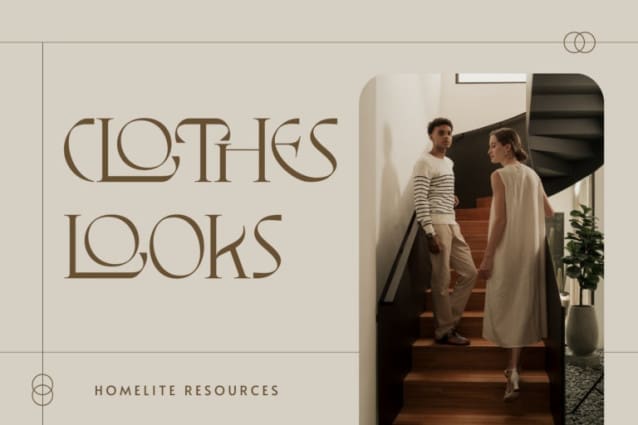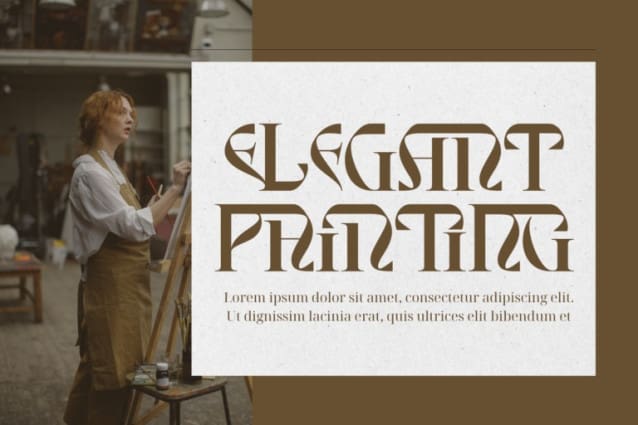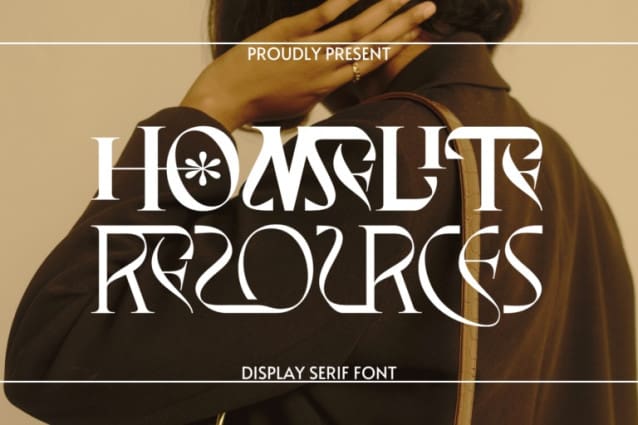
Homelite Resources Font
Homelite Resources Font – Retro modern serif display font. This typeface embodies a perfect balance between eccentricity and delicacy, much like a garden in full bloom. Whether you’re looking to evoke nostalgia or convey contemporary elegance, this font is your go-to solution for achieving that perfect balance.
Homelite Resources was built with OpenType features and includes 100 ligatures, alternate, numbers, punctuation, and it also supports other languages.
AC AD AL AN AR AS AT AU AV BE CA CE CH CO CT DE DI EA EC ED EE EL EM EN EP ER ES ET FE FO FR GE HA HE HI HO IE IC IL IN IO IR IS IT JU KE LA LE LI LL LO LY MA ME MI NC ND NE NG NO NT NS OC OF OM ON OO OP OR OT OU OW PA PR RA RD RE RI RO RS RT SE SH SI SO SS ST TA TE TH TI TO TR TT UM UN UR VE WI WO